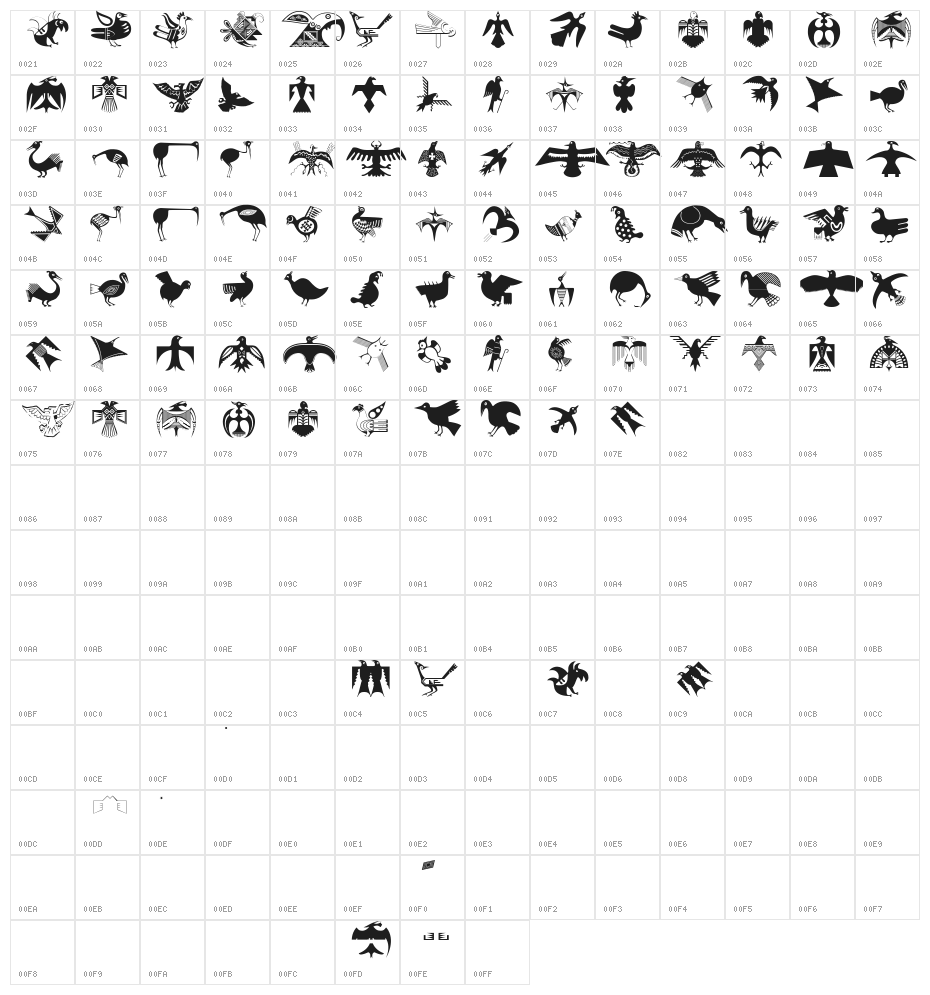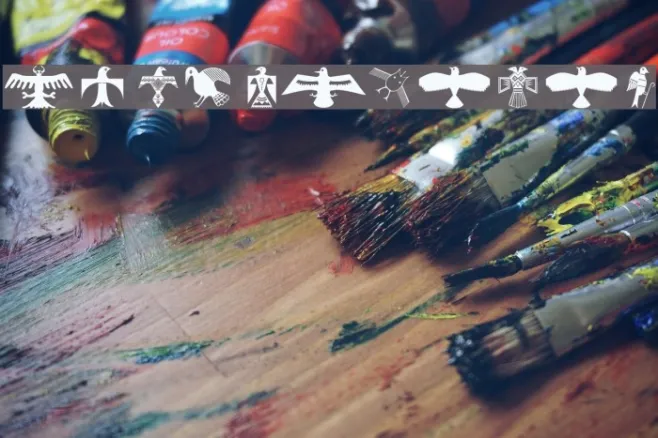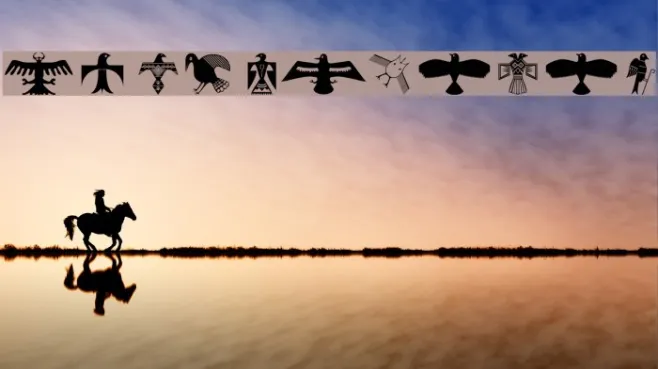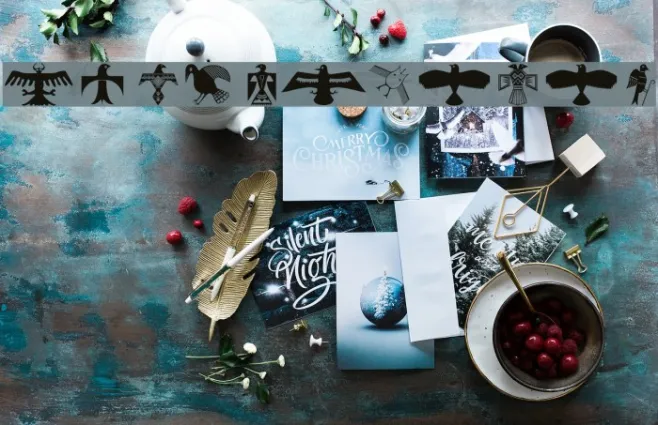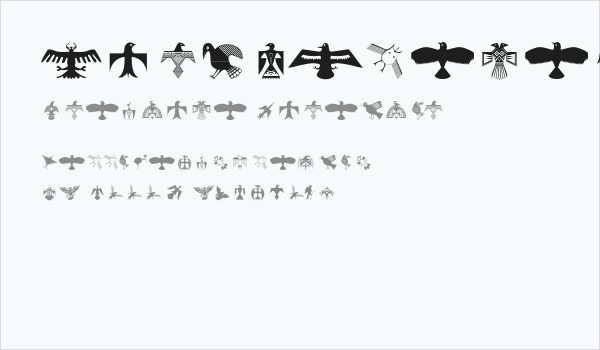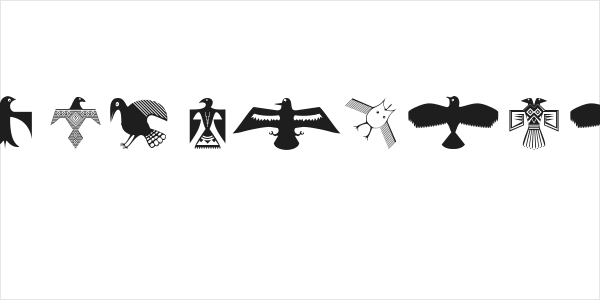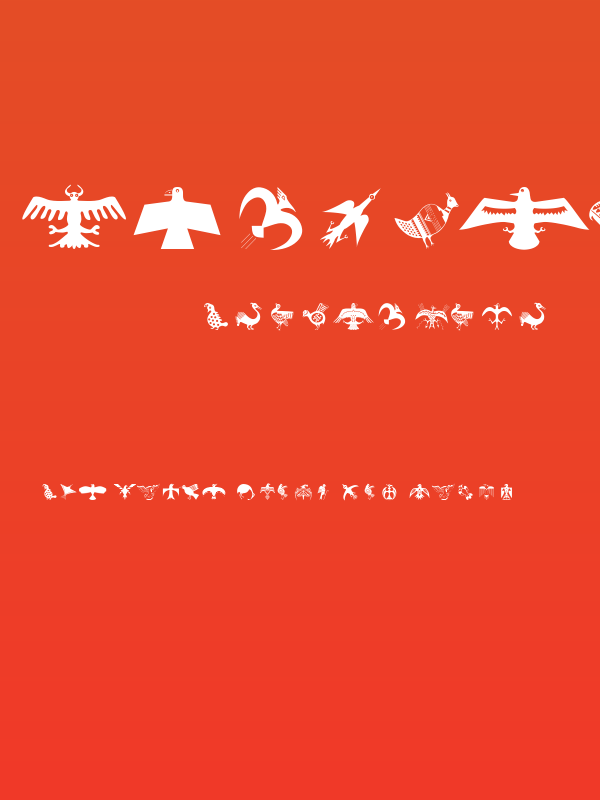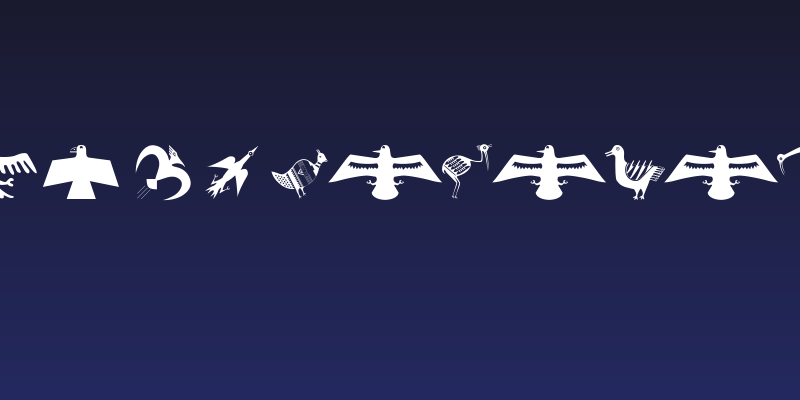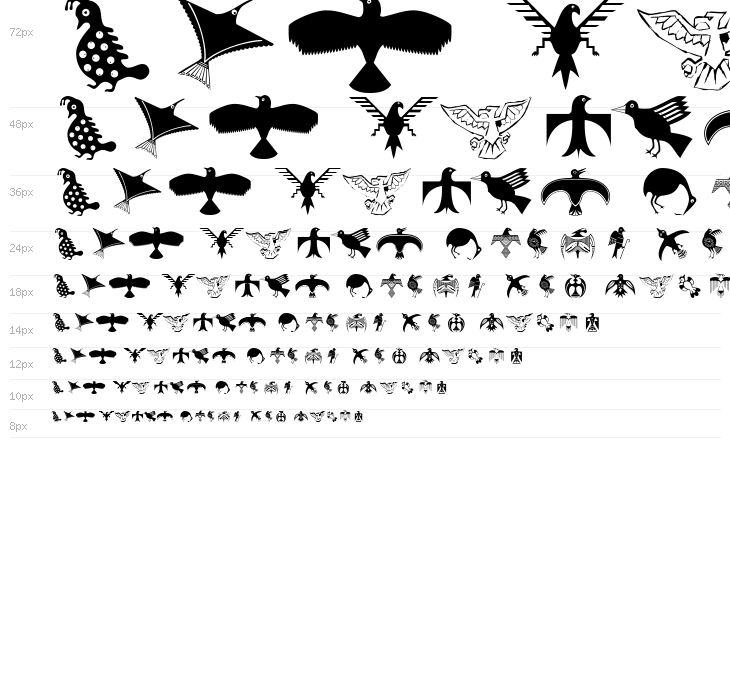
BirdsEleven Font
BirdsEleven Description
A decorative display font composed entirely of stylized bird illustrations, each glyph representing a unique bird design with tribal and geometric influences. The characters are highly pictorial, with varying levels of detail and abstraction, making each letterform distinct and ornamental.
Overall StyleDecorative, Tribal, Artistic
Use CaseLogos, Headlines, Posters, Art projects
Proposed ProjectsPosters, branding for nature or wildlife organizations, children's books, decorative headings, art projects.